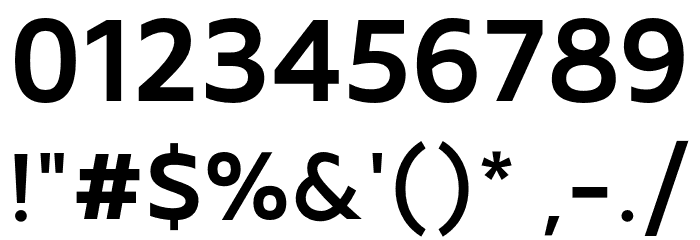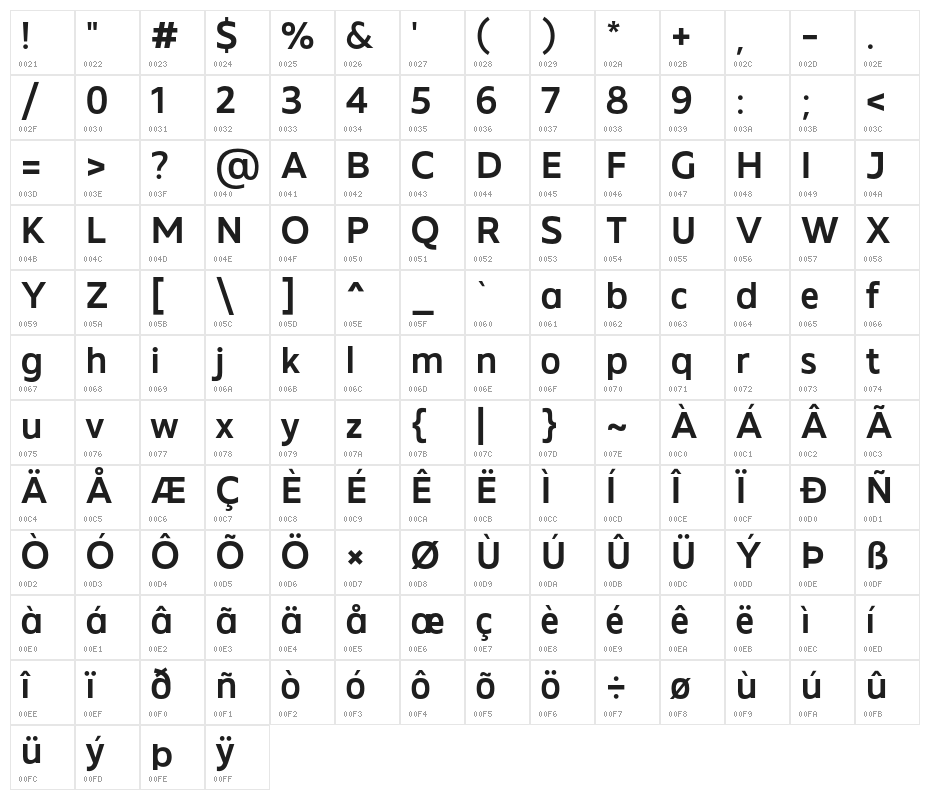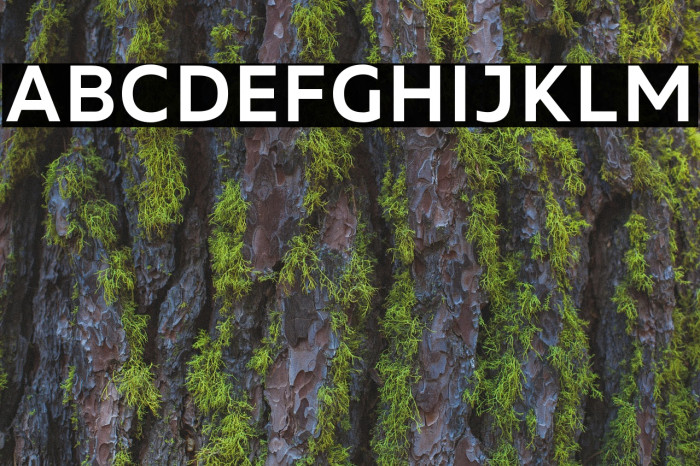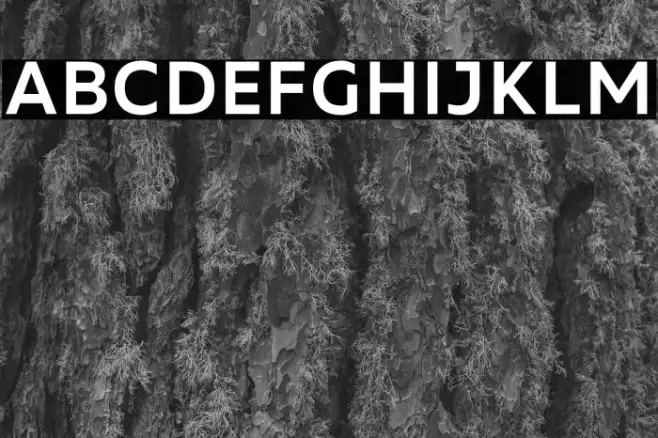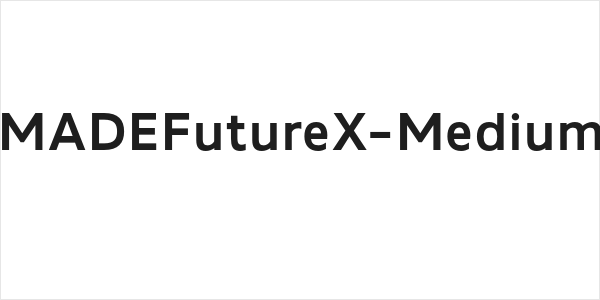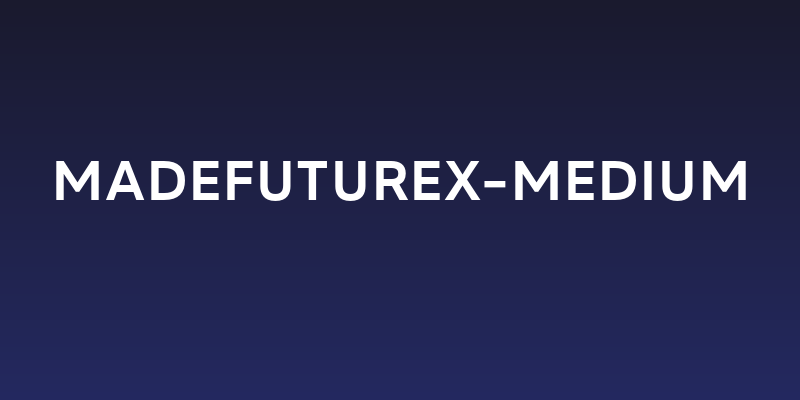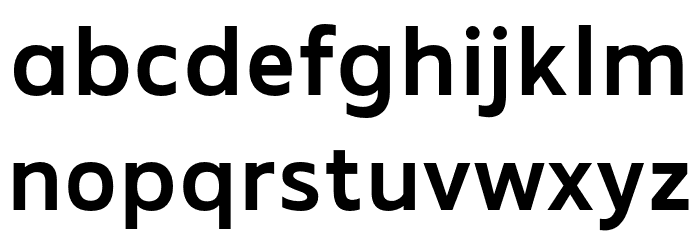
MADEFutureX-Medium Font
MADEFutureX-Medium Description
This font exhibits a clean and modern sans-serif style, characterized by its geometric shapes and balanced proportions. The uppercase letters are bold and assertive, while the lowercase letters maintain a consistent and harmonious flow. The numerals are clear and easily distinguishable, making them suitable for various applications. Special characters are well-defined, adding versatility to the font's usage. The overall design is sleek and contemporary, making it ideal for digital and print media.